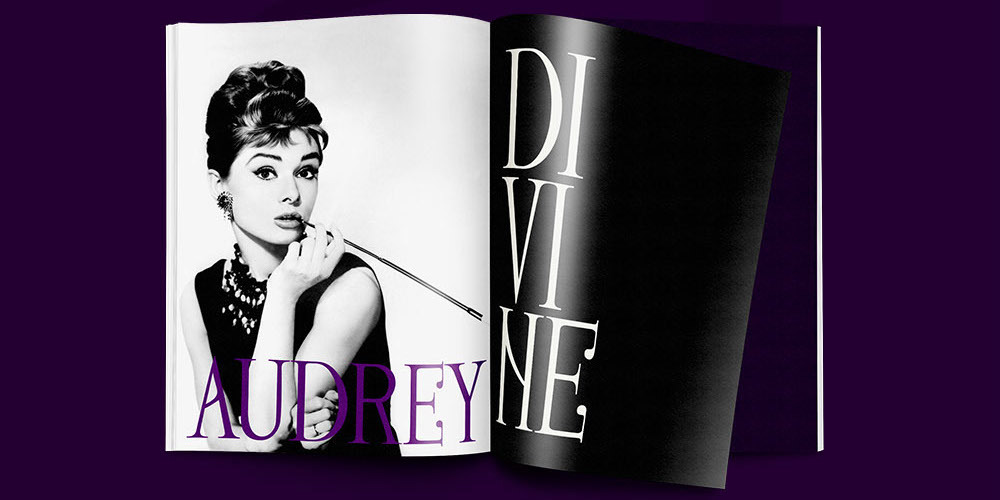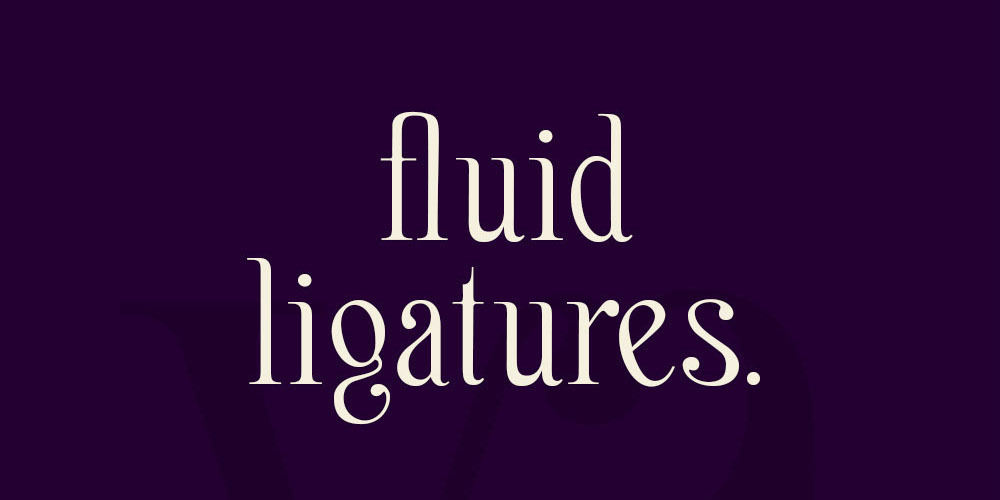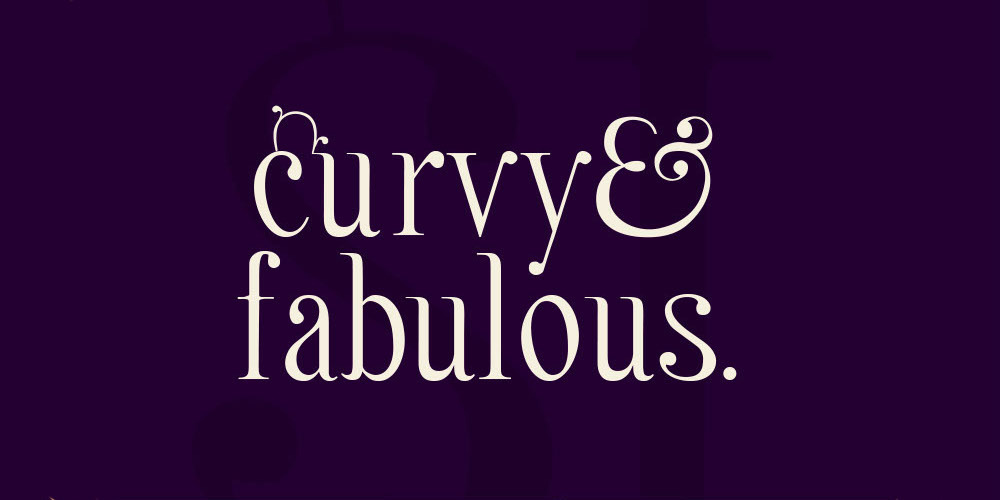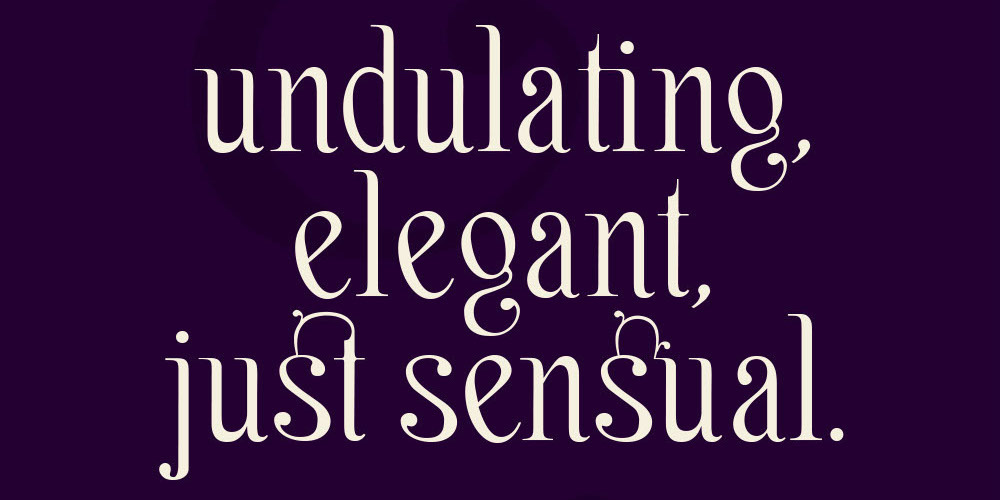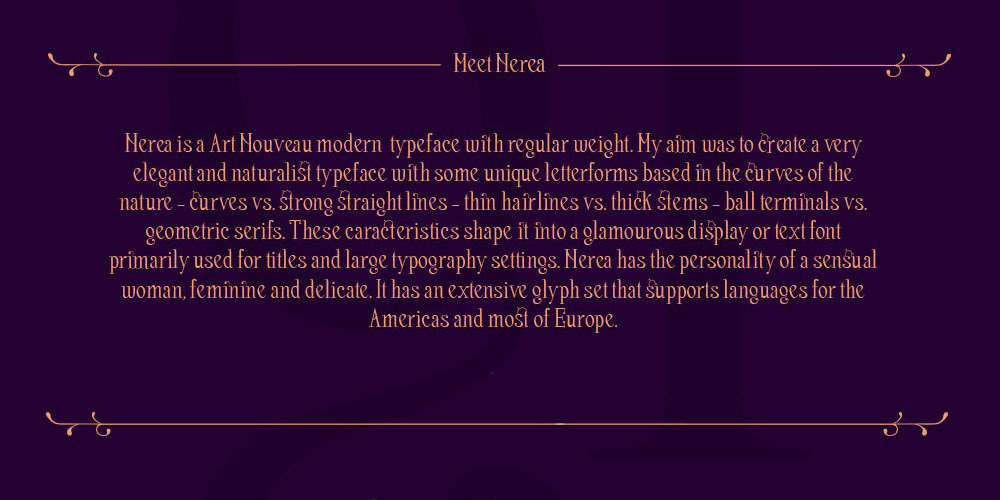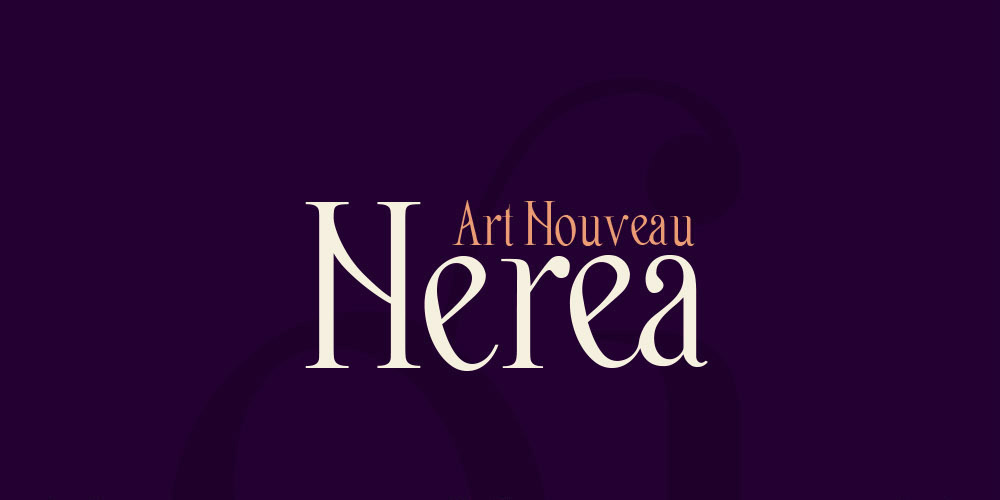
Nerea Font
Nerea is an Art Nouveau typeface with regular weight. My aim was to create a ver elegant, natureal typeface with some unique letterforms based in the curves of the nature – curves vs. strong straigh lines – thin hairlines vs thick stems – ball terminas vs geometric serifs. These characteristis shape it into a glamourous display or text font primarily used for titles and large typograpahy settings. Nerea has the personality of a sensual woman, feminine and delicate. It has an extensive glyph set that supports languages for the Americas and most of Europe. Buy a commercial license at fonts.com orLinotype or visit Nerea’s official website at nerea.lllu.es